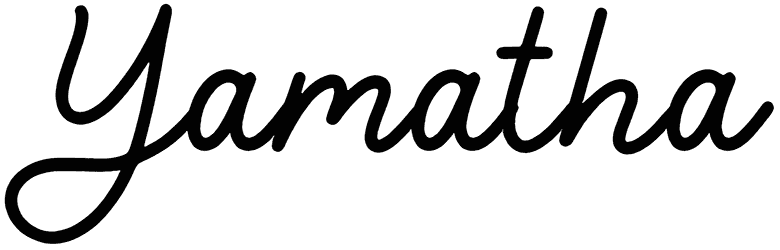
Yamatha Font
Enrich the text of your novel design with a soft and delicate letterform like the Yamatha font and make it more memorable. This thank-you font doesn’t offer numerals, but you can still combine it with your layout and make it adorable. Create an invitation card for a party with this handwritten font and reveal your unique taste.